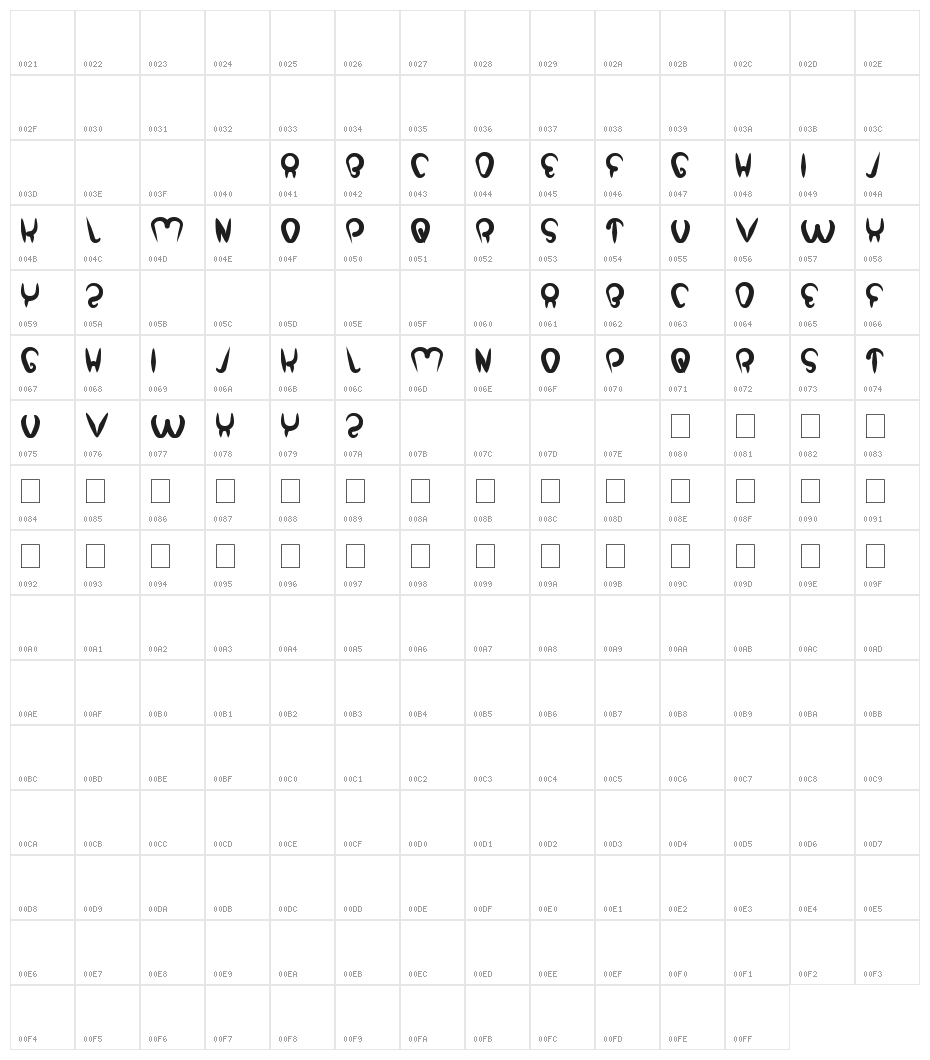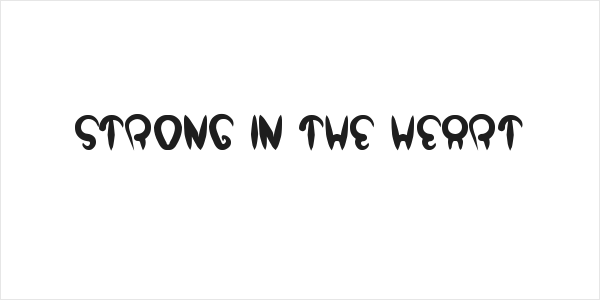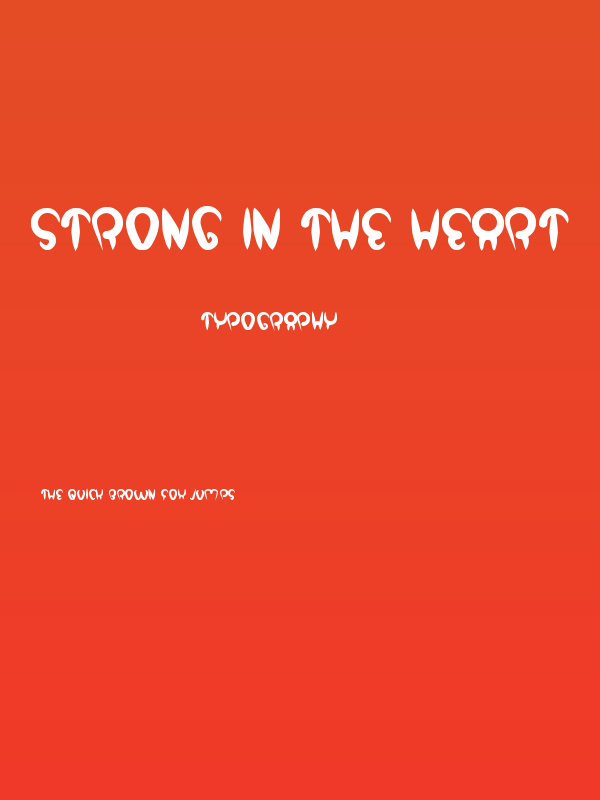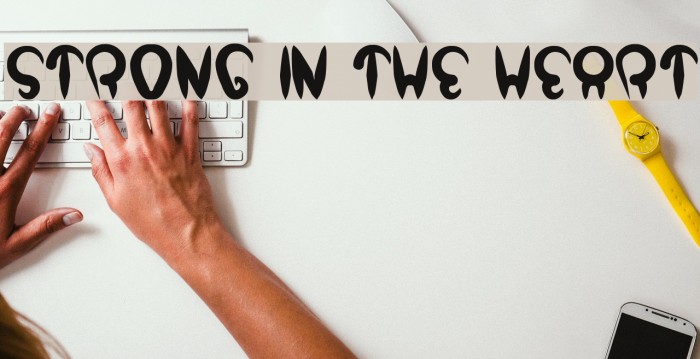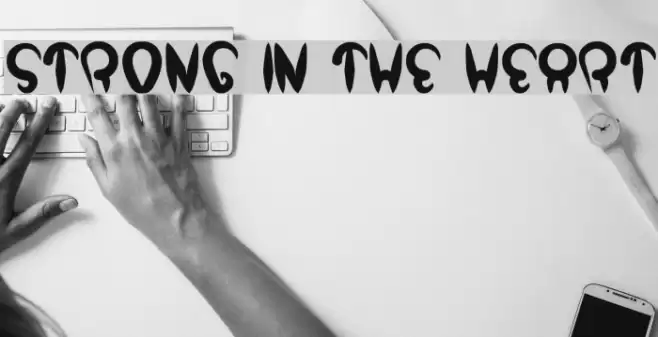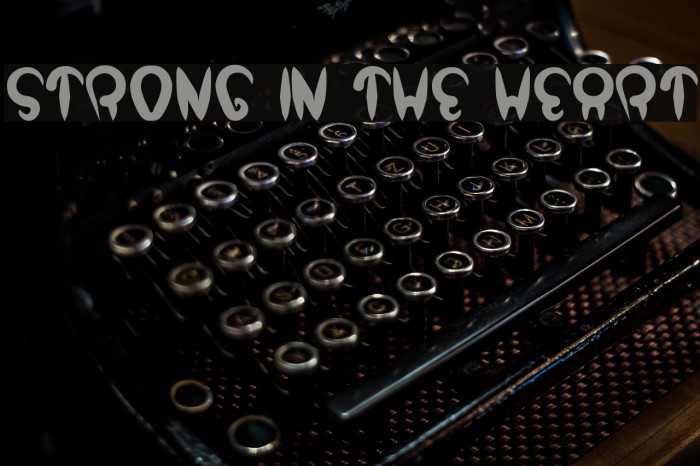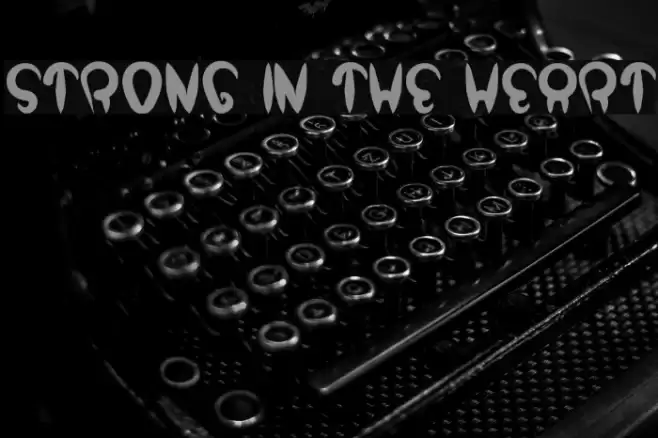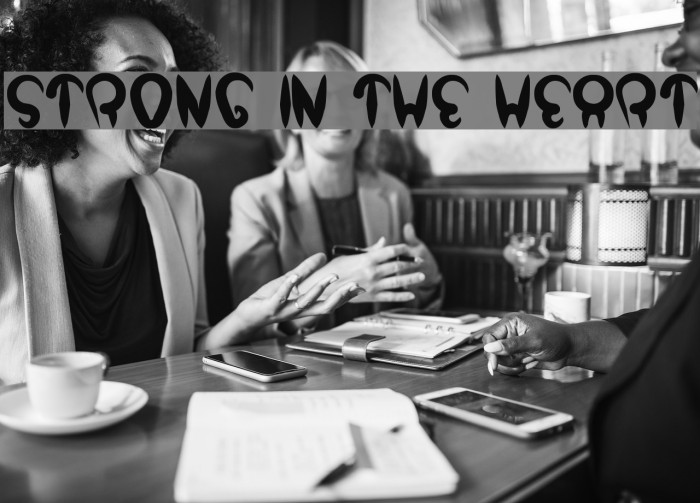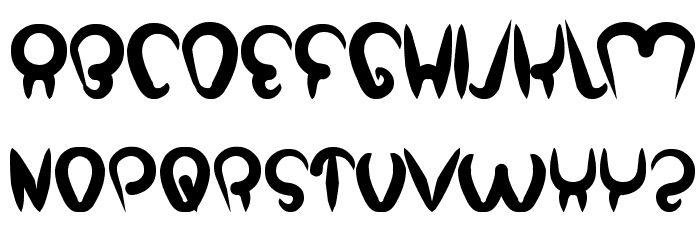
strong in the heart Font
strong in the heart Description
This font features a bold and dramatic style with unique, artistic curves and sharp edges. Each character is designed with a strong visual impact, making it ideal for attention-grabbing designs. The uppercase letters have a consistent height, while the lowercase letters maintain a similar width, creating a cohesive look. The font's distinct style is characterized by its high contrast between thick and thin strokes, adding to its striking appearance. The overall design is reminiscent of tribal or gothic influences, making it suitable for projects that require a bold and unconventional aesthetic.
| Use Case | Logos, Posters, Album covers |
| Proposed Projects | Perfect for album covers, posters, logos, and any project needing a bold, artistic touch. |